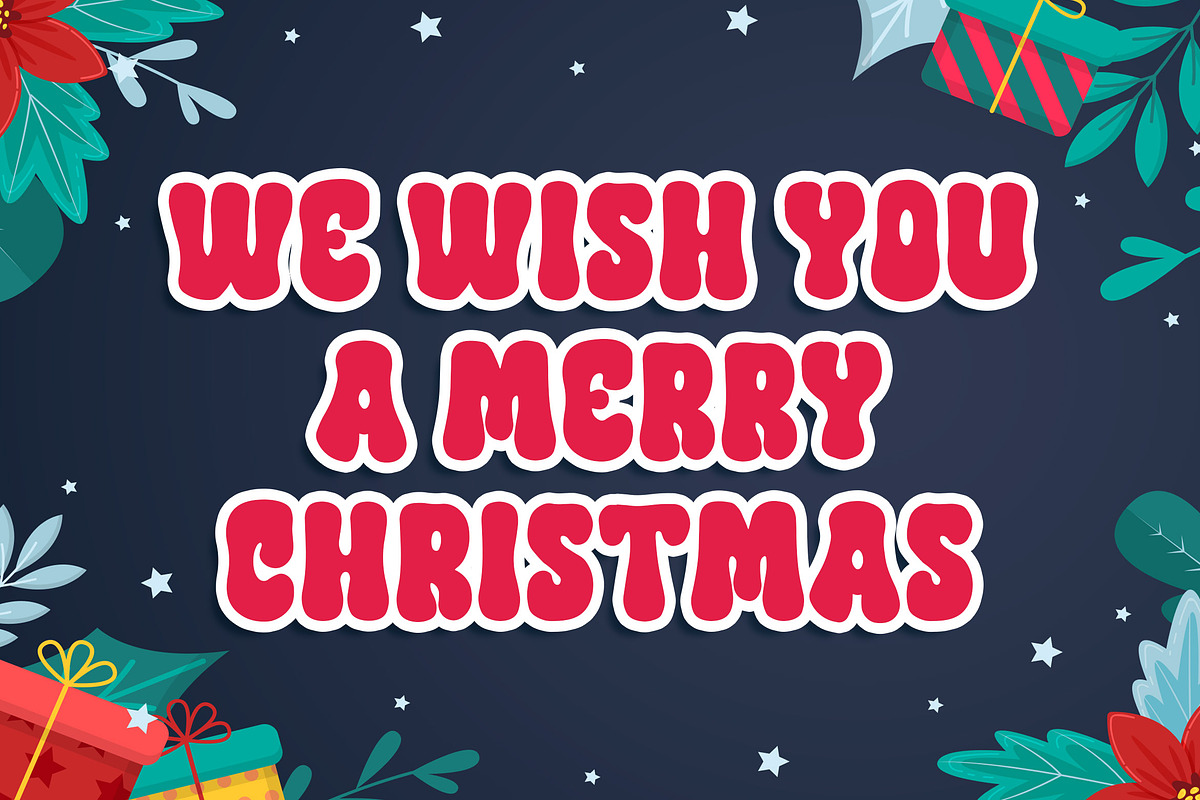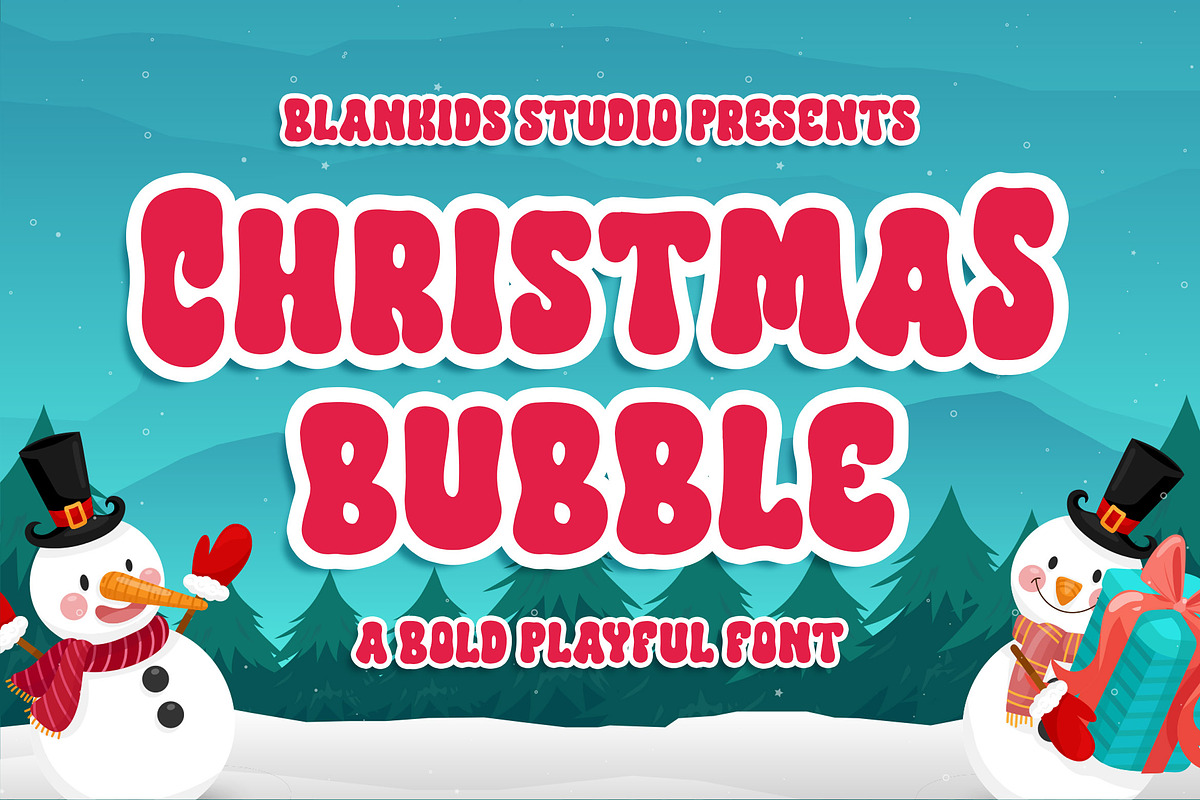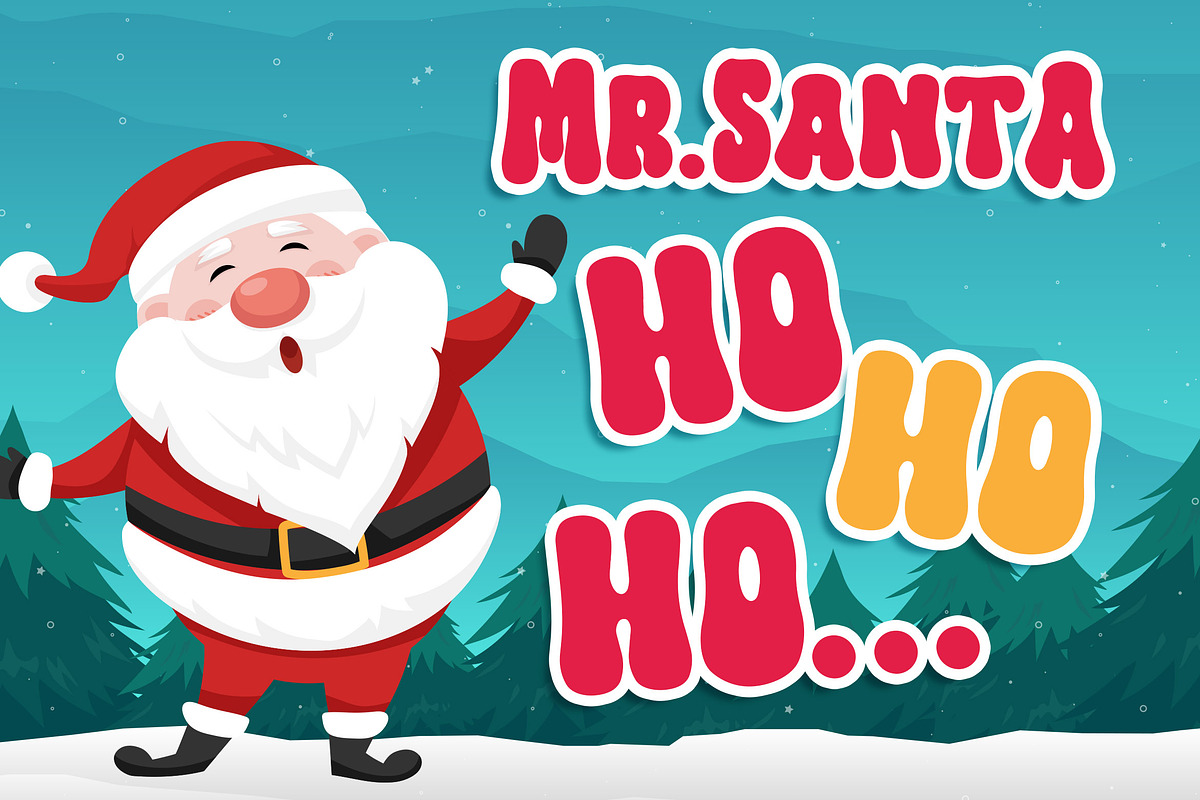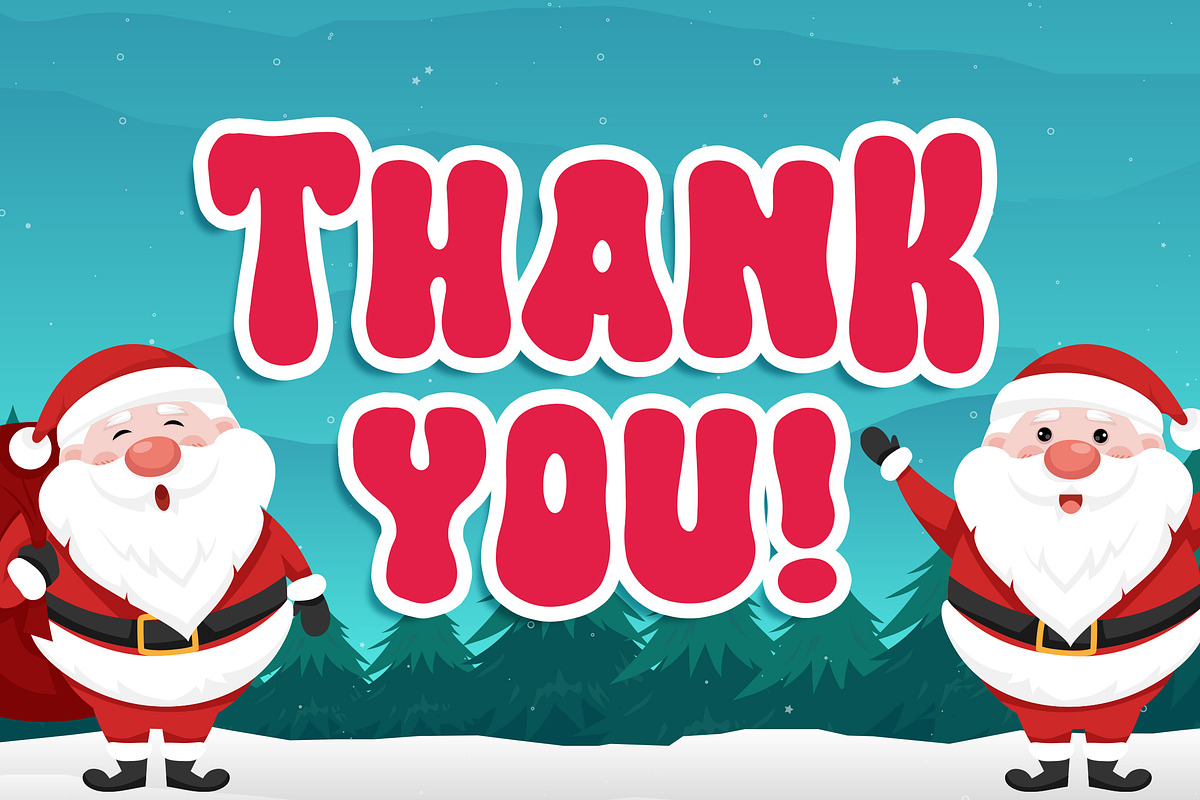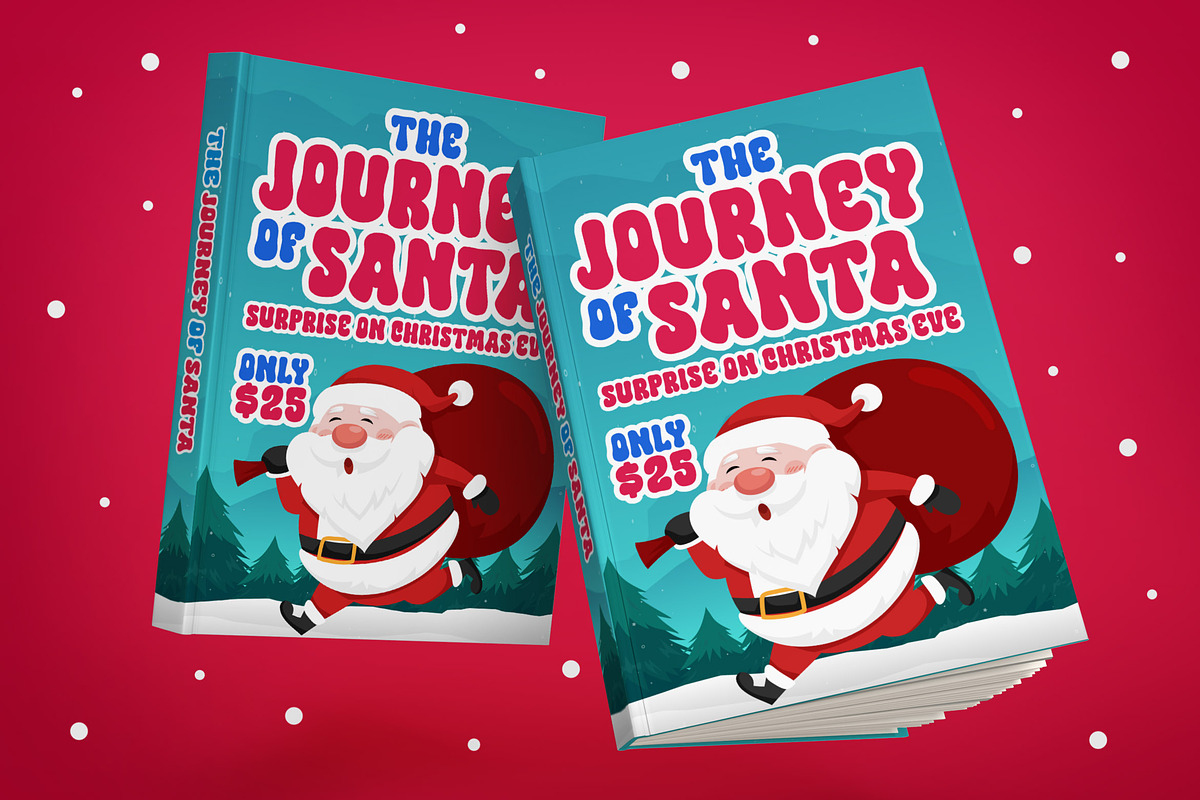
Christmas Bubble a Bouncy Playful Fo
Are you looking for a Christmas font? Do you want of creating something that stand out and inspire creativity, imagination, and endless fun? Wait no more, we will give you the best choice.
Christmas Bubble a Bouncy Playful Font
Christmas Bubble a Bouncy Playful Font, Inspiring from playful stone style typography. This font is perfect for a design that makes it more attractive and playful. made with a very good level of aesthetics making this font suitable for book cover, children book, comic, poster, packging, merchandise, logotype and much more.